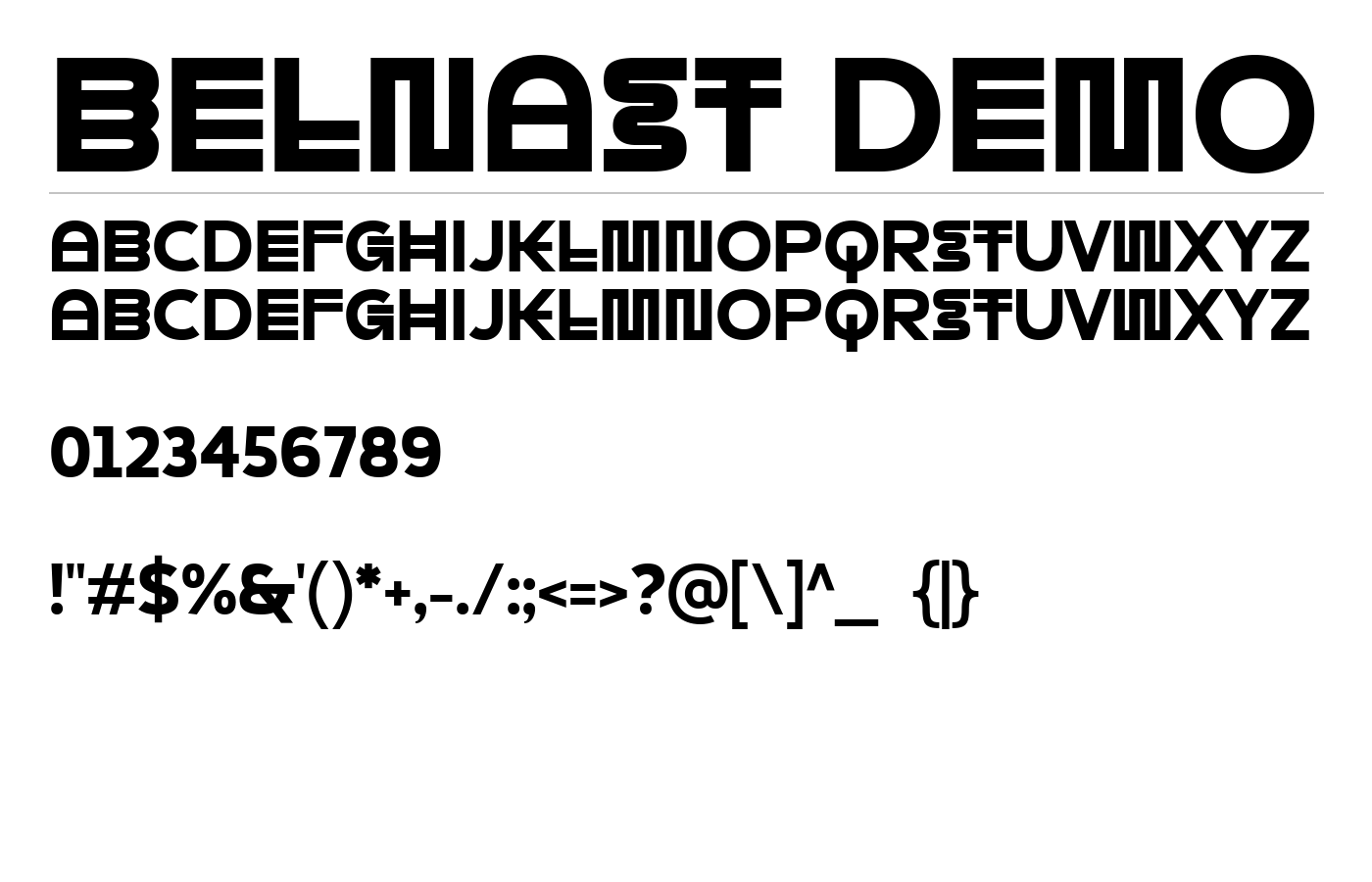
Belnast is a bold, geometric sans serif font characterized by its strong, blocky letterforms and distinctive, stylized shapes, giving it a modern and futuristic vibe. Its high-impact design works well for eye-catching headlines, logos, and branding where a bold, contemporary statement is desired. This font is ideal for creative projects in technology, fashion, and editorial design that benefit from a unique, assertive style.
Belnast Font
About Belnast Font
| Font family | Belnast Font |
| Designer | Drizy Studio |